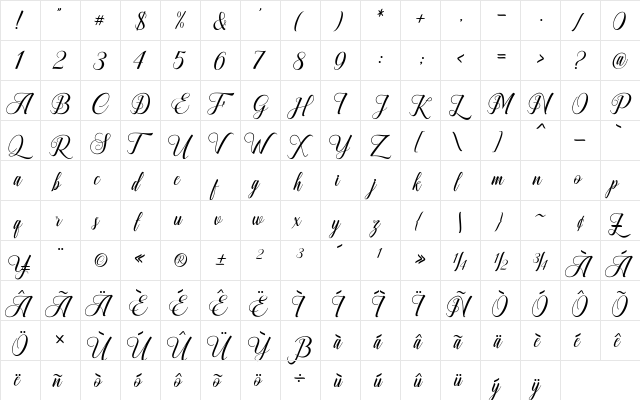
Ganesha Script Regular
Design Context for Ganesha Script Typeface
Ganesha Script flows with the natural rhythm of handwritten lettering, making it ideal for designs that call for warmth and personal expression.
Font Pairing: Combine Ganesha Script with a simple geometric sans for maximum contrast — the tension between flowing curves and clean structure is a classic typographic pairing.
Pro Tip: Pair Ganesha Script with a clean sans-serif for supporting text. The contrast between fluid script and geometric structure creates an elegant typographic hierarchy.